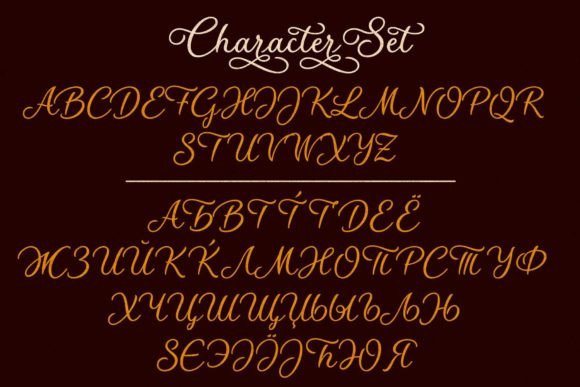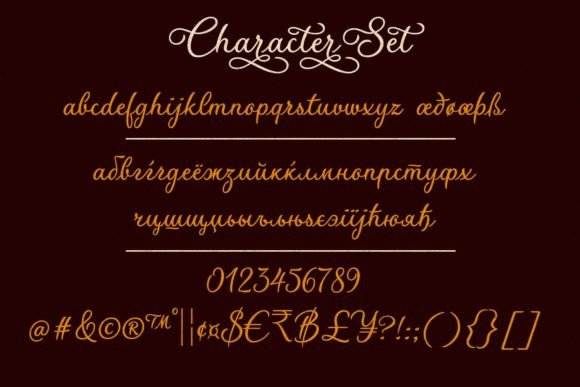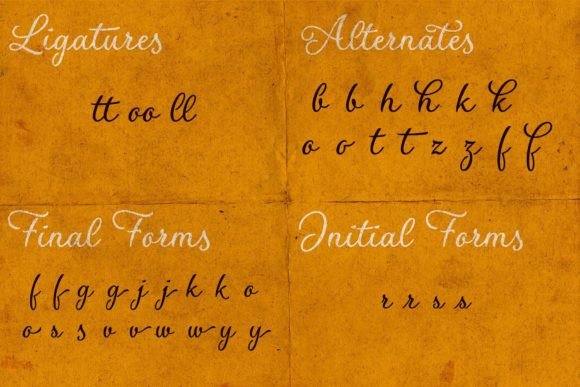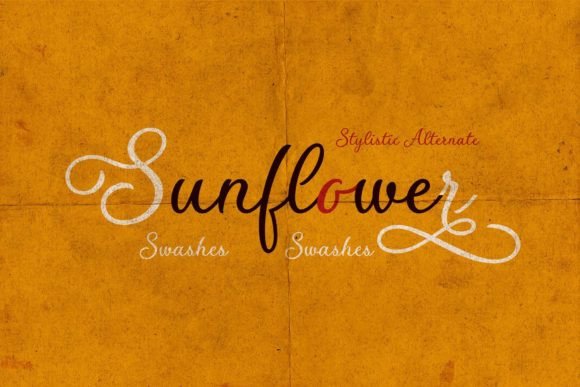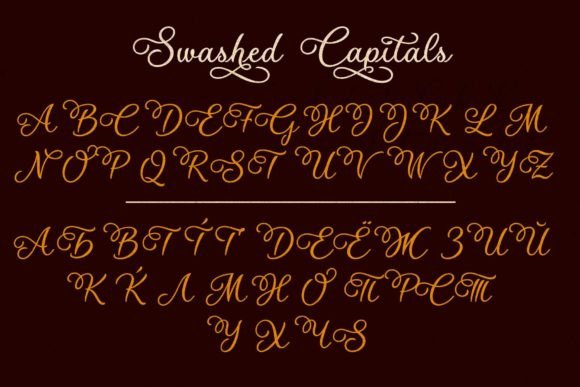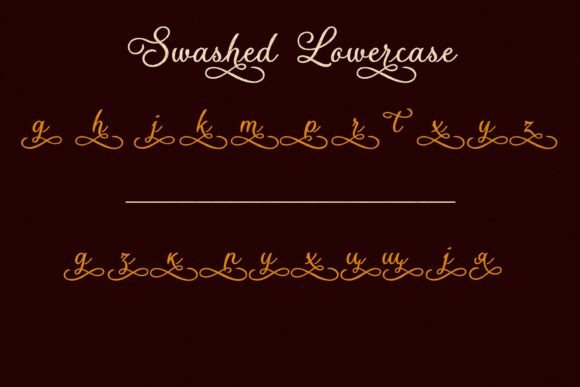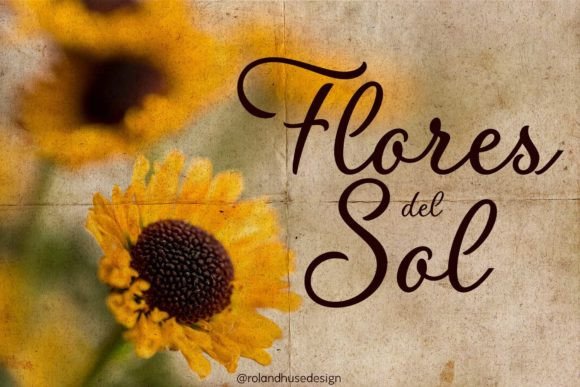
Introducing Flores Del Sol Font: The Perfect Elegant yet Playful Script Font
Are you a designer or crafter looking for a font that exudes elegance, friendliness, and playfulness? Look no further than Flores Del Sol Font, a stunning cursive, calligraphic script font that is sure to take your creative projects to the next level. With its swashed characters, beautiful ligatures, and versatility, Flores Del Sol Font is perfect for a wide range of applications, from logotypes and floral themes to T-shirts, scrapbooking postcards, weddings, and name cards.
What Makes Flores Del Sol Font So Special?
Flores Del Sol Font is a unique and eye-catching font that boasts a range of features that set it apart from other script fonts on the market. Here are just a few of the things that make Flores Del Sol Font so special:
- Cursive, Calligraphic Script: Flores Del Sol Font has a beautiful, flowing cursive script that is reminiscent of traditional calligraphy. Its elegant strokes and curves make it perfect for creating sophisticated and eye-catching text.
- Swashed Characters: The font features swashed characters that add a touch of elegance and sophistication to your text. The swashes can be used to create beautiful connections between words and letters, making your text look more refined and polished.
- Stunning Ligatures: Flores Del Sol Font comes with a range of stunning ligatures that allow you to create beautiful, unique text. Ligatures are special character combinations that replace standard character pairs, creating a more elegant and refined look.
- Elegant yet Friendly and Playful: Despite its elegant appearance, Flores Del Sol Font is also friendly and playful, making it perfect for a wide range of creative projects. Whether you’re designing a logo, creating a scrapbook page, or making a wedding card, Flores Del Sol Font is sure to add a touch of whimsy and personality to your work.
Perfect for a Wide Range of Creative Projects
Flores Del Sol Font is an incredibly versatile font that can be used for a wide range of creative projects. Here are just a few ideas to get you started:
- Logotypes: Create a stunning logo for your business or brand with Flores Del Sol Font. Its elegant, cursive script and swashed characters make it perfect for creating a sophisticated and eye-catching logo.
- Floral and Boutique Themes: Flores Del Sol Font is perfect for floral and boutique themes, adding a touch of elegance and sophistication to your text. Use it to create beautiful headings, titles, and descriptions for your website, social media, or marketing materials.
- T-Shirts and Apparel: Add a touch of personality to your T-shirts and apparel with Flores Del Sol Font. Its friendly and playful appearance makes it perfect for creating fun and eye-catching designs.
- Scrapbooking and Postcards: Flores Del Sol Font is a great choice for scrapbooking and postcards, adding a touch of elegance and whimsy to your pages and cards.
- Weddings and Name Cards: Create beautiful wedding cards, invitations, and name cards with Flores Del Sol Font. Its elegant appearance makes it perfect for formal events and special occasions.
Why Choose Flores Del Sol Font?
With so many script fonts on the market, why choose Flores Del Sol Font? Here are just a few reasons why Flores Del Sol Font stands out from the crowd:
- Unique and Eye-Catching: Flores Del Sol Font is a unique and eye-catching font that is sure to grab attention. Its elegant, cursive script and swashed characters make it perfect for creating sophisticated and eye-catching text.
- High-Quality Design: Flores Del Sol Font is designed to the highest standards, with beautiful, flowing strokes and curves that make it a joy to use.
- Versatile: Flores Del Sol Font is an incredibly versatile font that can be used for a wide range of creative projects, from logotypes and floral themes to T-shirts and scrapbooking postcards.
- Elegant yet Friendly and Playful: Flores Del Sol Font is both elegant and friendly and playful, making it perfect for a wide range of creative projects.
In conclusion, Flores Del Sol Font is a stunning cursive, calligraphic script font that is perfect for designers and crafters looking for a elegant yet friendly and playful font. With its swashed characters, beautiful ligatures, and versatility, Flores Del Sol Font is sure to take your creative projects to the next level. So why wait? Download Flores Del Sol Font today and start creating beautiful, eye-catching text for your next project!